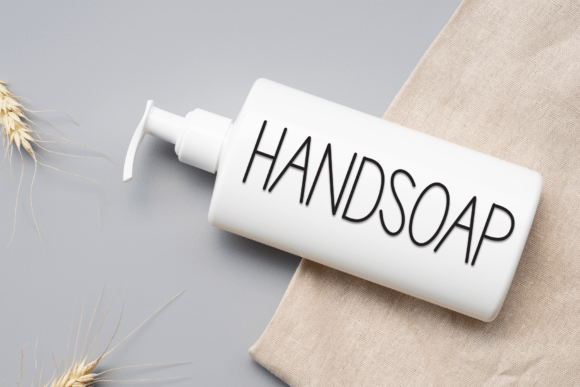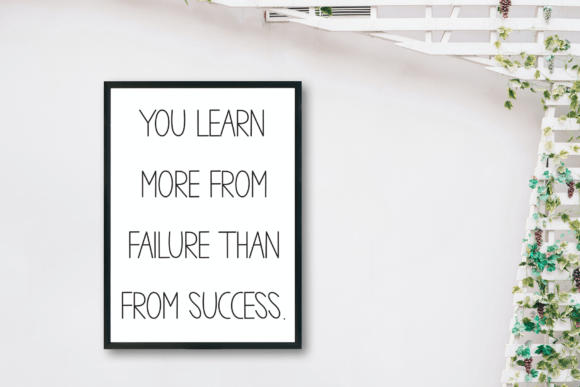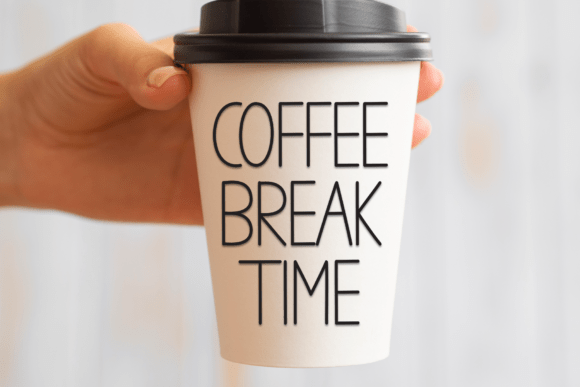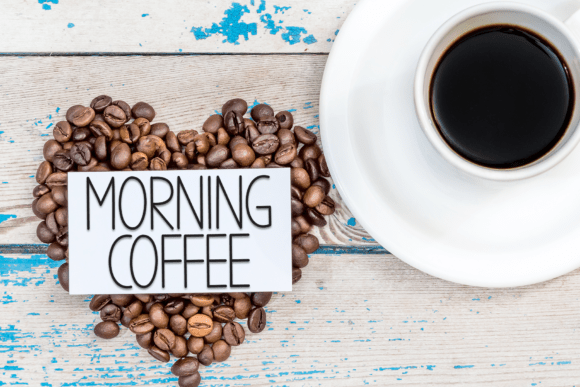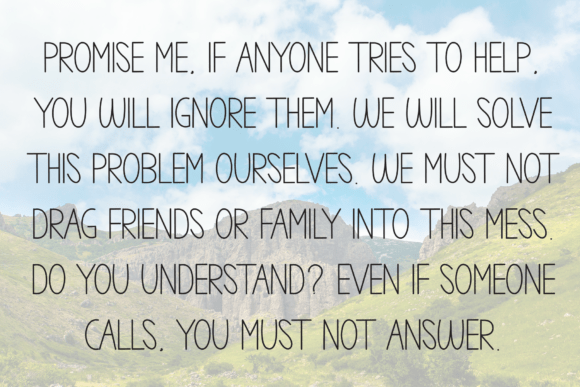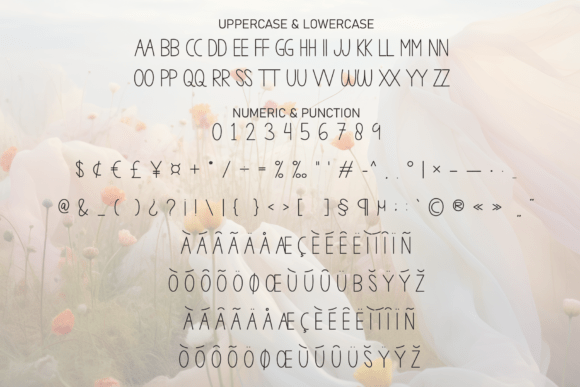
Introducing Delightful Font: The Perfect Blend of Warmth and Clarity
In the world of typography, fonts play a crucial role in conveying messages, expressing emotions, and creating lasting impressions. For designers, crafters, and anyone looking to add a personal touch to their projects, finding the right font can be a daunting task. This is where Delightful Font comes in – a casual and neat display font designed to bring warmth and clarity to your creations.
The Characteristics of Delightful Font
Delightful Font is characterized by its clean structure and approachable style, making it an ideal choice for a wide range of applications, including branding, headlines, and everyday designs. The font’s balanced letterforms offer exceptional readability and charm, ensuring that every message feels genuine and inviting.
What Makes Delightful Font Stand Out?
- Clean Structure: Delightful Font boasts a clean and organized structure, which provides a clear and concise visual representation of your message.
- Approachable Style: The font’s friendly and approachable style makes it perfect for designs that require a personal touch, such as invitations, greeting cards, and social media graphics.
- Balanced Letterforms: The carefully crafted letterforms in Delightful Font ensure that each character is easy to read and visually appealing, making it perfect for headlines, titles, and short paragraphs.
- Warmth and Clarity: The font’s unique blend of warmth and clarity makes it an excellent choice for designs that require a human touch, such as blog posts, articles, and website content.
Delightful Font is an excellent addition to any designer’s or crafter’s toolkit. Whether you’re working on a branding project, creating social media graphics, or designing invitations, this font is sure to impress. Its versatility and legibility make it perfect for a wide range of applications, from digital designs to print materials.
Use Cases for Delightful Font
- Branding: Use Delightful Font to create a consistent visual identity for your brand, including logos, business cards, and letterheads.
- Headlines and Titles: Add a touch of elegance and sophistication to your headlines and titles with Delightful Font.
- Invitations and Greeting Cards: Create personalized and heartfelt invitations and greeting cards with Delightful Font.
- Social Media Graphics: Use Delightful Font to create engaging and shareable social media graphics, including Facebook posts, Instagram stories, and Twitter headers.
- Blog Posts and Articles: Add a touch of warmth and approachability to your blog posts and articles with Delightful Font.
In conclusion, Delightful Font is a versatile and charming display font that is perfect for designers, crafters, and anyone looking to add a personal touch to their projects. Its clean structure, approachable style, and balanced letterforms make it an excellent choice for a wide range of applications. With Delightful Font, you can create stunning visual content that is sure to leave a lasting impression.